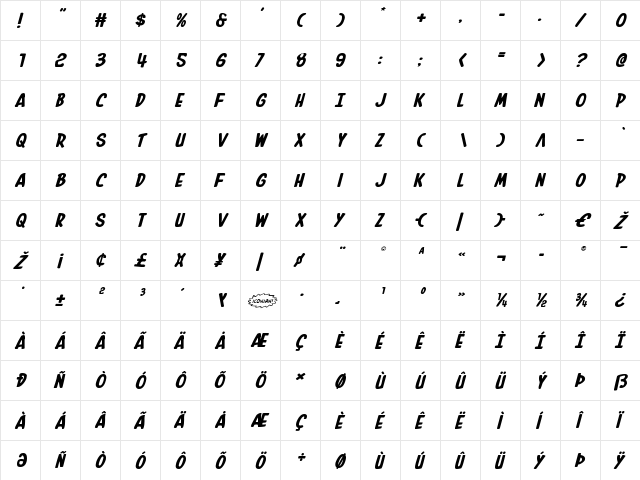
In-House Edition Expanded Italic Expanded Italic
Design Context for In-House Edition Expanded Italic Typeface
In-House Edition Expanded Italic offers clean, dependable letterforms without strong stylistic allegiance, making it a practical choice for designers who need flexibility. The dynamic lean of this cut emphasises speed and emphasis in any layout.
Pro Tip: Use In-House Edition Expanded Italic for emphasis, pull quotes, and subheadings where its slanted energy can add rhythm to the layout.